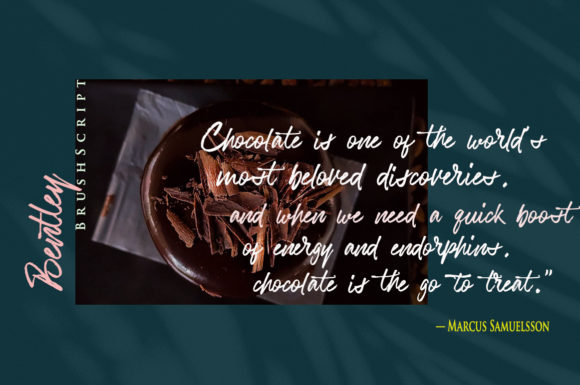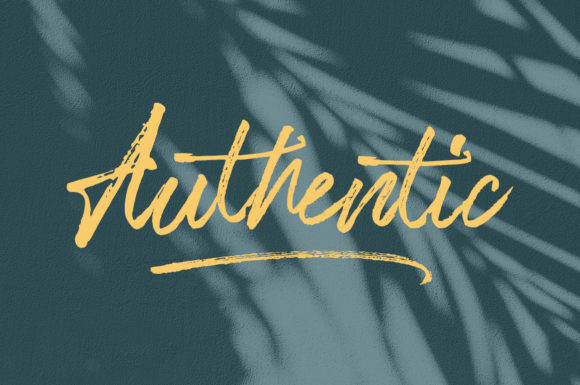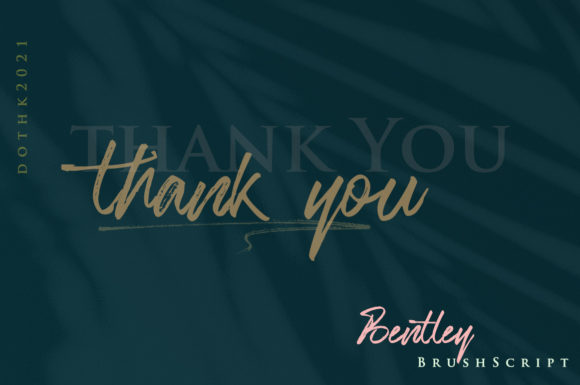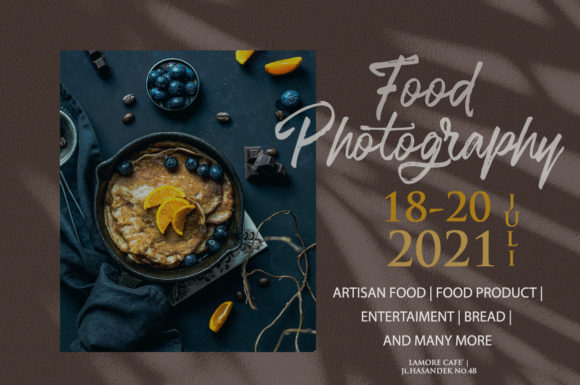
The Sweet Charm of Bentley Script Font
I’ll never forget the time I was working on a wedding invitation project, and my client asked for a font that would make their special day feel like a fairytale. I scoured the internet, trying out font after font, but nothing seemed quite right. That was until I stumbled upon Bentley Script Font. This beautiful, delicate brushed handwritten font won my heart and my client’s, and it’s been a staple in my design toolkit ever since.
An Honest Review of Bentley Script Font
So, what makes Bentley Script Font so special? Let’s dive into the good stuff and a few quirks I’ve discovered.
- ✨ Sweet and delicate: Bentley Script Font has a charming, whimsical feel that’s perfect for romantic designs.
- ✅ Highly legible: Despite its delicate nature, this font is surprisingly easy to read, even at smaller sizes.
- 💕 Emotional connection: The handwritten quality of Bentley Script Font creates an instant emotional connection with your audience, making it ideal for wedding invitations, love letters, or any design that requires a personal touch.
While Bentley Script Font is a stunning addition to any design, there are a few things to keep in mind:
- ⚠️ Not ideal for body text: Due to its delicate nature, Bentley Script Font is best suited for headlines, titles, or short paragraphs. For longer texts, consider pairing it with a more traditional font.
- 🤔 Limited use in formal designs: While Bentley Script Font is perfect for romantic or whimsical designs, it may not be the best fit for formal or corporate projects.
A Practical Guide to Using Bentley Script Font
Now that we’ve covered the basics, let’s explore how to use Bentley Script Font in your designs.
- Experiment with OpenType features, such as swashes and ligatures, to add a touch of elegance to your design.
- Explore the font’s glyphs and stylistic alternates to add visual interest to your design.
The Story Behind Bentley Script Font
While the true origins of Bentley Script Font are unclear, it’s easy to imagine a designer sitting down with a brush pen, pouring their heart onto the page. This font’s delicate, whimsical quality suggests a creator who was aiming to capture the essence of romance and joy.
| Font Name | Bentley Script Font |
| Author | Arief.hk |
Q: Can I use Bentley Script Font for my wedding invitations?
A: Absolutely! Bentley Script Font is a popular choice for wedding designs, and its delicate, romantic quality makes it perfect for invitations, save-the-dates, or wedding stationery.